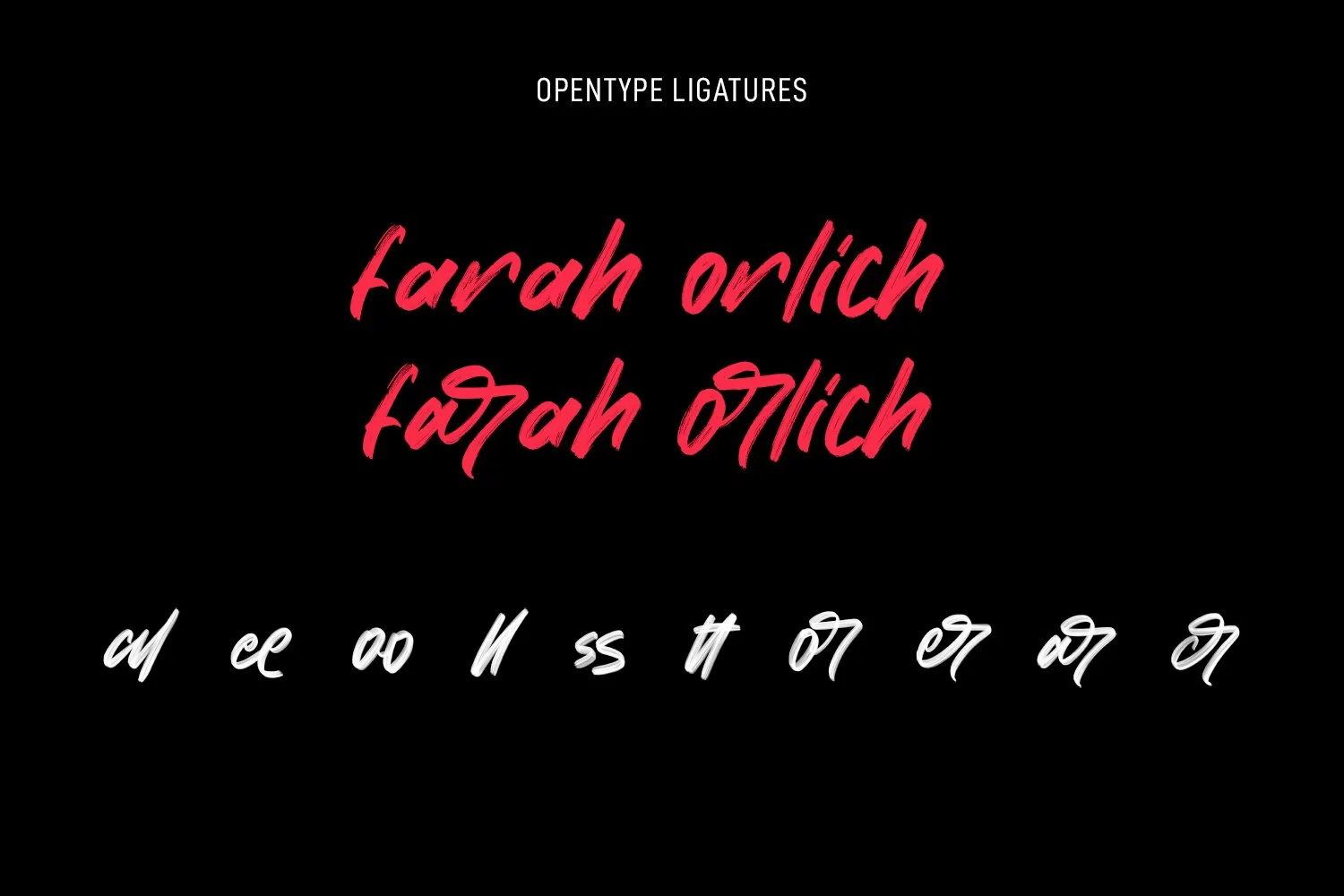
Chorest is an SVG handwritten font. With brush stroke, slant and fun character with a bit of ligatures and bit lowercase alternatives. To give you an extra creative work. Chorest SVG font support multilingual more than 100+ language. This font is good for logo design, Social media, Movie Titles, Books Titles, a short text even a long text letter and good for your secondary text font with sans or serif. Make a stunning work with Chorest SVG font.